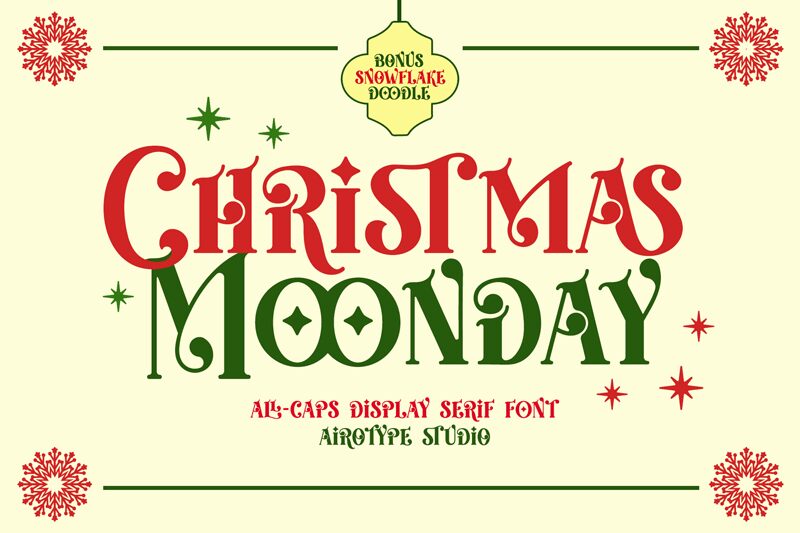
Christmas Moonday font designed by Airotype Studio embodies the whimsical and festive spirit of the holiday season. This free font has a nostalgic, vintage-inspired feel, perfect for evoking that magical Christmas joy. Its decorative features and fanciful, ornamental style capture the warmth and cheer associated with festive celebrations.